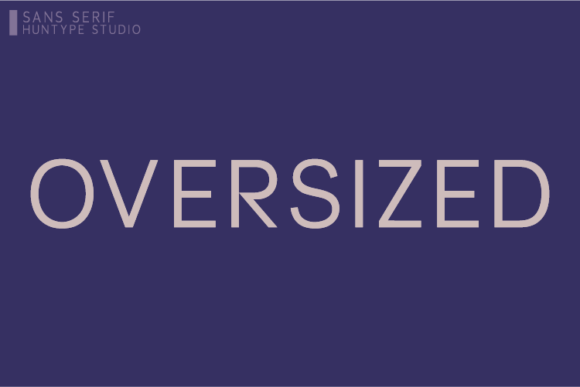
Introducing Oversized, the all-caps sans serif font that will make your designs pop! With its smooth, clean lines and just the right amount of contrast, Oversized is the perfect choice for logos, branding, and web headings. Whether you're looking to create a bold statement or simply add a touch of sophistication to your work, Oversized is the font for you.
**Here's why you'll love Oversized:**
* **It's eye-catching.** Oversized's large, bold letters are sure to grab attention, making it the perfect choice for headlines, titles, and logos.
* **It's versatile.** Oversized is a great choice for a wide range of design projects, from t-shirts and posters to websites and social media graphics.
* **It's easy to read.** Oversized's clean lines and high contrast make it easy to read, even at small sizes.